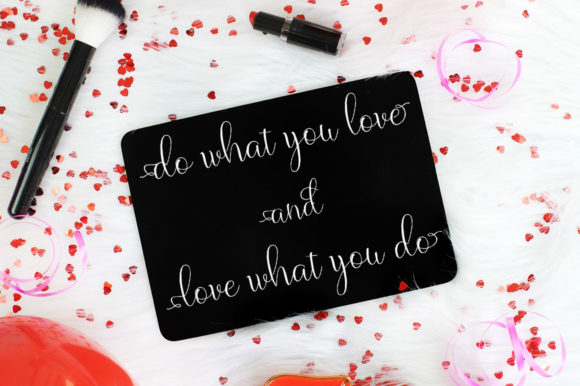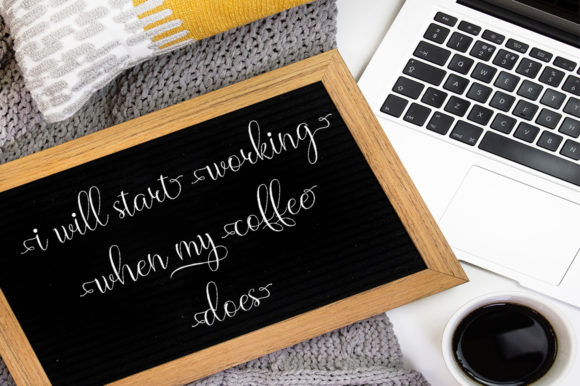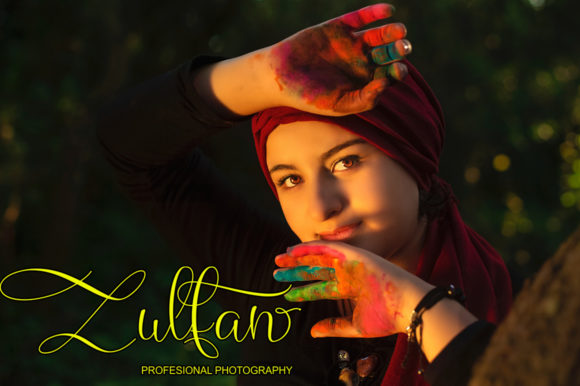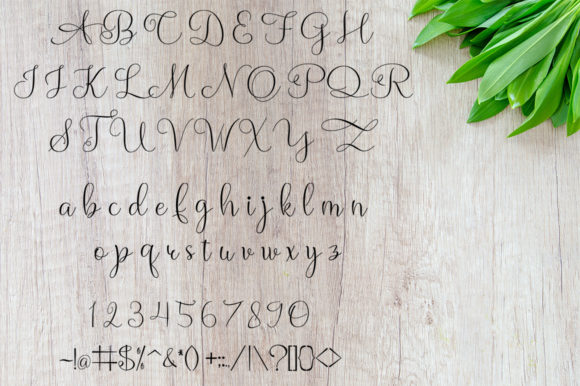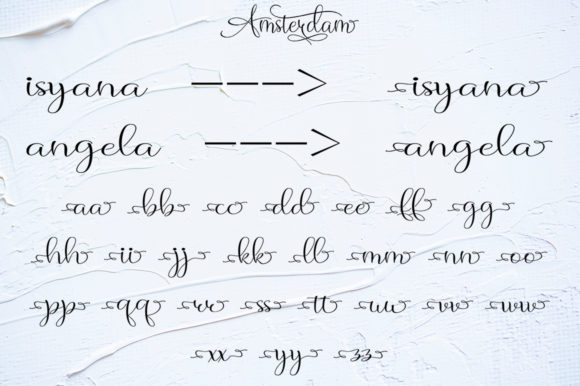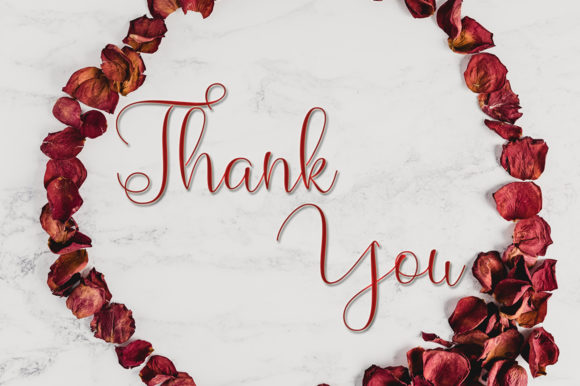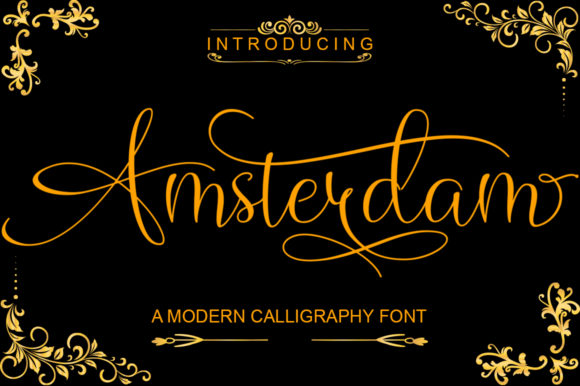
Discover the Charm of Amsterdam Font: Elevate Your Designs with Elegance
Are you on the hunt for a font that exudes both charm and elegance? Look no further than the Amsterdam Font, a round lettered handwritten font that is sure to capture your heart. With its unique blend of sophistication and playfulness, this font is perfect for designers and crafters looking to add a touch of whimsy to their projects.
What Makes Amsterdam Font So Special?
Amsterdam Font is not just any ordinary font. It’s a PUA encoded font, which means you can access all of the glyphs and swashes with ease. This feature makes it incredibly versatile and user-friendly, allowing you to experiment with different design combinations without any hassle. Whether you’re creating a logo, branding materials, or social media graphics, Amsterdam Font has got you covered.
Key Features of Amsterdam Font
- Varying Baseline: Amsterdam Font features a unique varying baseline that adds a touch of organic feel to your designs. This feature creates a sense of movement and fluidity, making your text-based designs more engaging and dynamic.
- Smooth Lines: The font boasts smooth lines that give it a refined and polished look. The smooth lines also help to create a sense of continuity, making your designs look more cohesive and professional.
- Gorgeous Glyphs: Amsterdam Font comes with a range of gorgeous glyphs that can be used to add visual interest to your designs. From elegant swashes to beautiful ligatures, these glyphs are sure to take your designs to the next level.
- Stunning Alternates: The font also features stunning alternates that allow you to experiment with different design variations. With a range of alternate characters to choose from, you can create unique and eye-catching designs that stand out from the crowd.
Why Designers and Crafters Love Amsterdam Font
Amsterdam Font has quickly become a favorite among designers and crafters, and for good reason. Its incredibly versatile style makes it perfect for a wide range of design projects, from wedding invitations and branding materials to social media graphics and packaging design.
One of the main reasons designers love Amsterdam Font is its ability to add a touch of elegance and sophistication to their designs. The font’s smooth lines, gorgeous glyphs, and stunning alternates make it perfect for creating high-end designs that exude luxury and refinement.
Crafters also love Amsterdam Font for its playfulness and charm. The font’s unique varying baseline and whimsical feel make it perfect for creating handmade crafts, such as cards, scrapbook pages, and DIY projects.
Tips for Using Amsterdam Font in Your Designs
- Experiment with Different Sizes: Amsterdam Font looks great in a range of sizes, from large headings to smaller body text. Experiment with different sizes to find the perfect fit for your design.
- Play with Glyphs and Swashes: Don’t be afraid to get creative with the font’s glyphs and swashes. These features can add a touch of visual interest to your designs and help them stand out.
- Pair it with Other Fonts: Amsterdam Font pairs well with a range of other fonts, from bold and modern to elegant and refined. Experiment with different font combinations to find the perfect fit for your design.
Amsterdam Font is a truly unique and special font that is sure to capture your heart. With its charming and elegant feel, versatile style, and range of features, it’s perfect for designers and crafters looking to add a touch of whimsy to their projects. Whether you’re creating a logo, branding materials, or social media graphics, Amsterdam Font is sure to elevate your designs and take them to the next level.